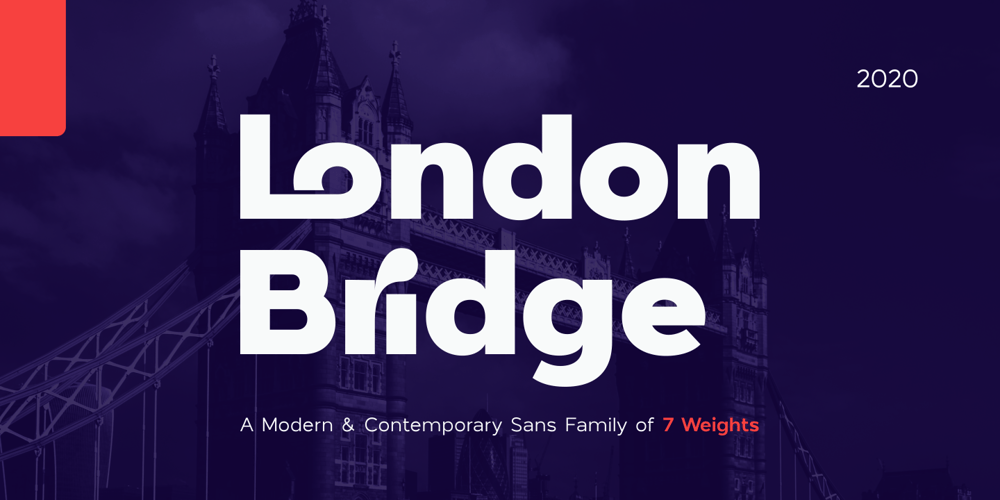
London Bridge
London Bridge font
London Bridge Font Family was designed by Alfin Weniardi and published by Fype Co. London Bridge contains 7 styles and family package options. London Bridge is a Modern Sans Serif with a clean and geometric touch. It comes in 7 weights. Each weight includes extended language support, fractions, ordinal, superscript, and more than 30 ligatures. Designed with powerful OpenType features in mind it perfectly suited for graphic design and any display use.London Bridge is a fine balance of functionality and contemporary characteristics.